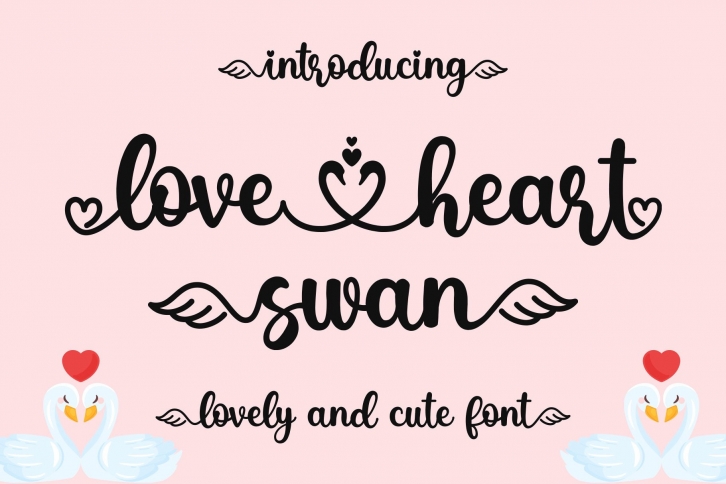
Little Kitty is a cute handwritten Font. This font is inspired by cute swan, It features amazing swan shaped swashes which makes it suitable for adorable kids’-related products.